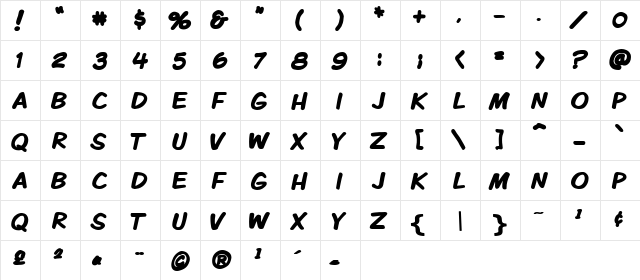
VTCKomixationCapsBold Regular
Design Context for VTCKomixationCapsBold Typeface
VTCKomixationCapsBold is a composed and adaptable typeface that performs quietly and consistently across a wide range of design contexts. Its bold stroke weight gives it real presence on the page.